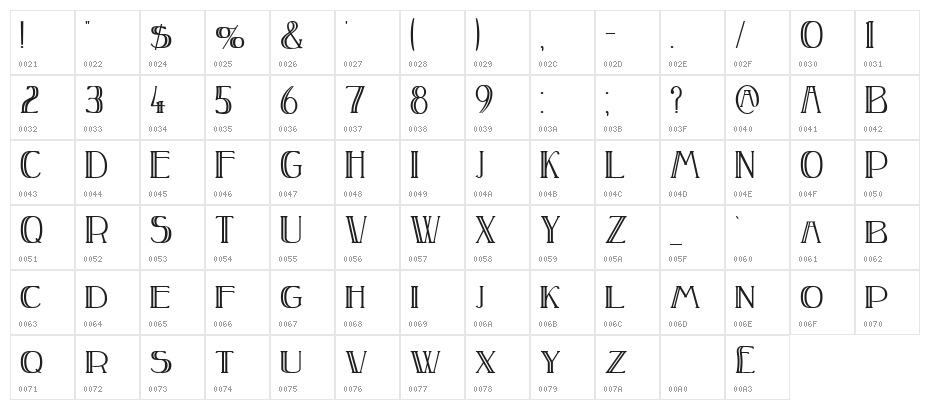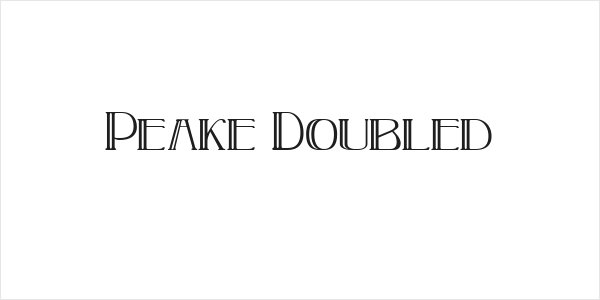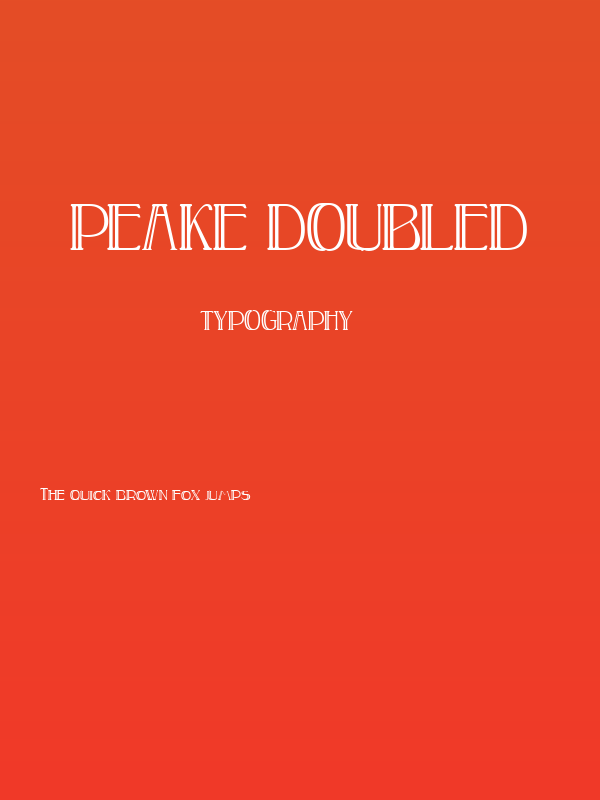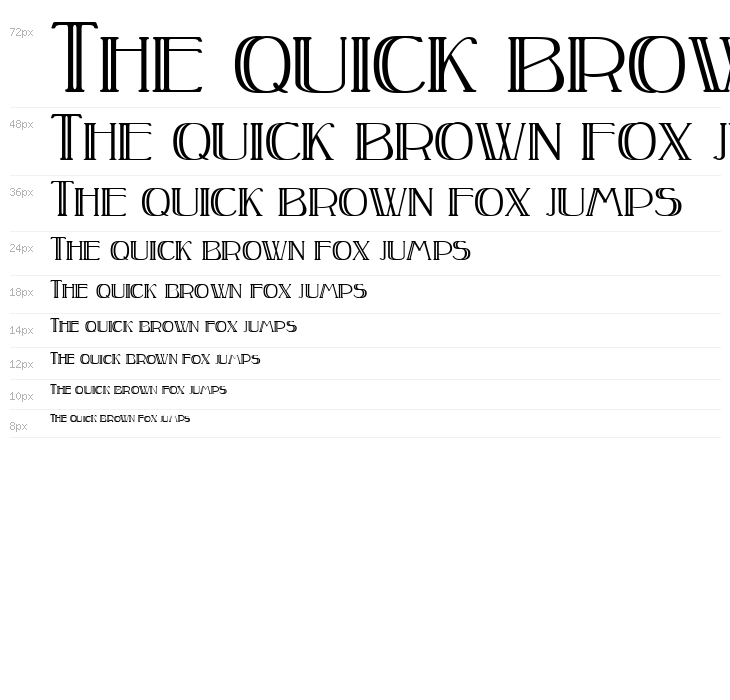
Peake Doubled Font
Peake Doubled Description
This font features a unique and artistic design with a doubled line effect that creates a sense of depth and dimension. The uppercase letters are bold and striking, with a geometric influence that adds a modern touch. The lowercase letters maintain the same doubled line style, ensuring consistency throughout the typeface. Numbers are equally stylized, with a playful yet sophisticated appearance. Special characters are included, each designed with the same attention to detail, making this font versatile for various creative projects.
| Proposed Projects | Ideal for branding, posters, and creative design projects where a bold statement is needed. |